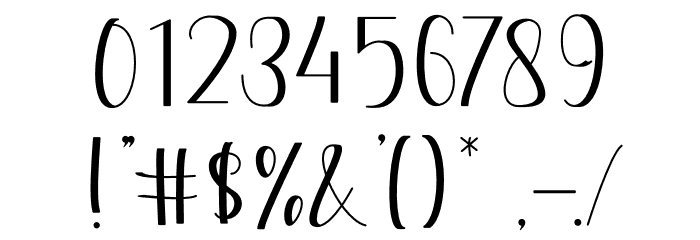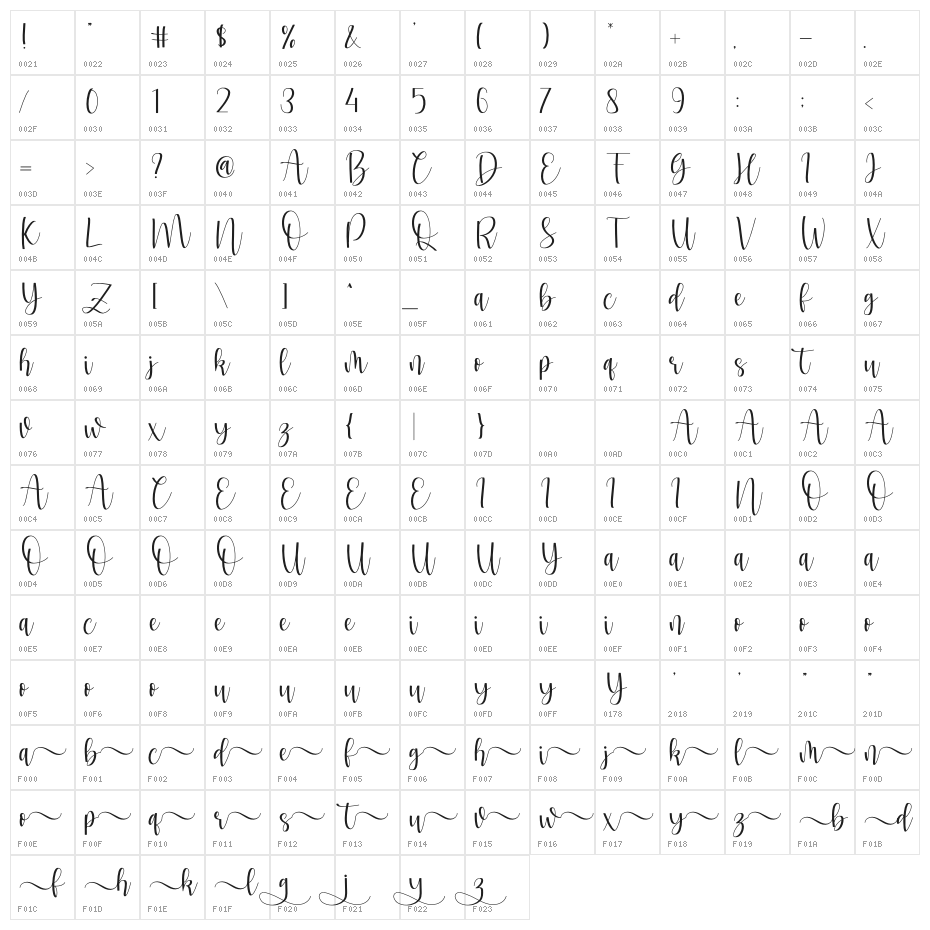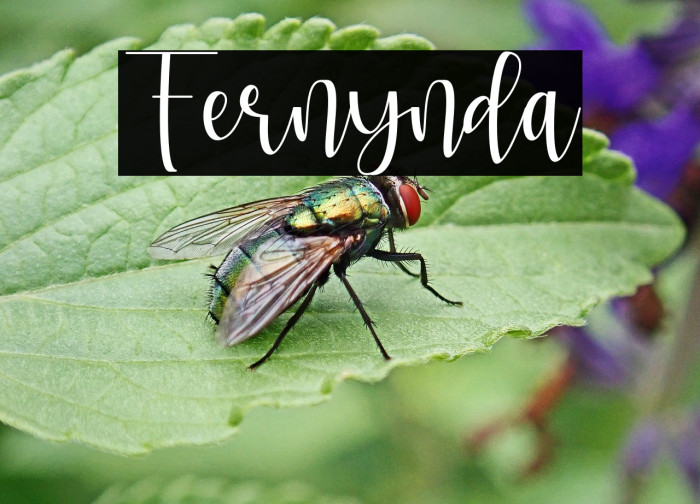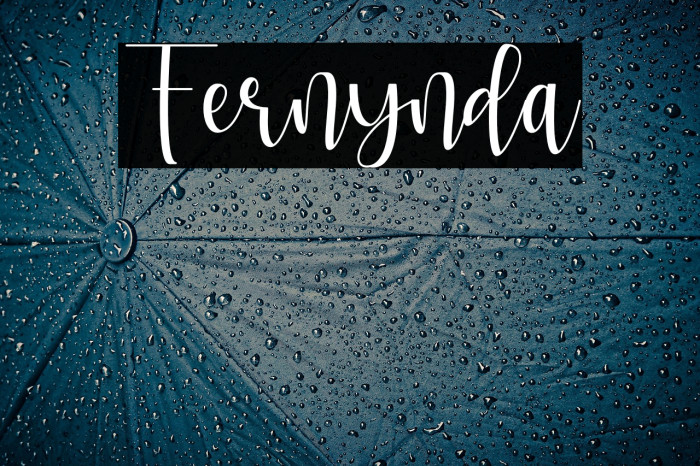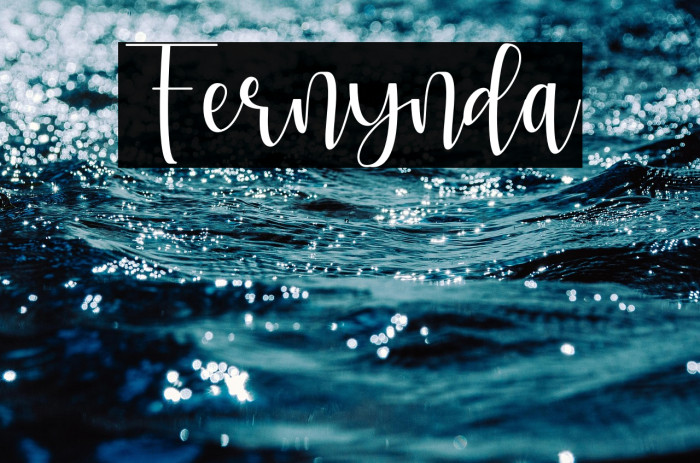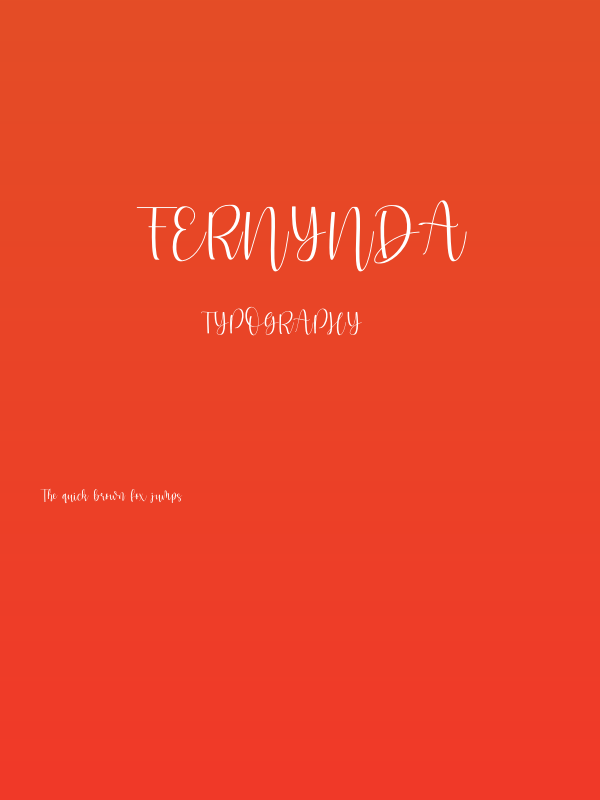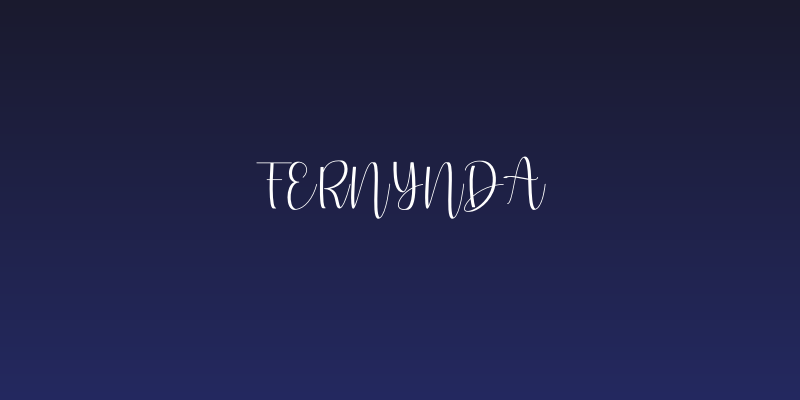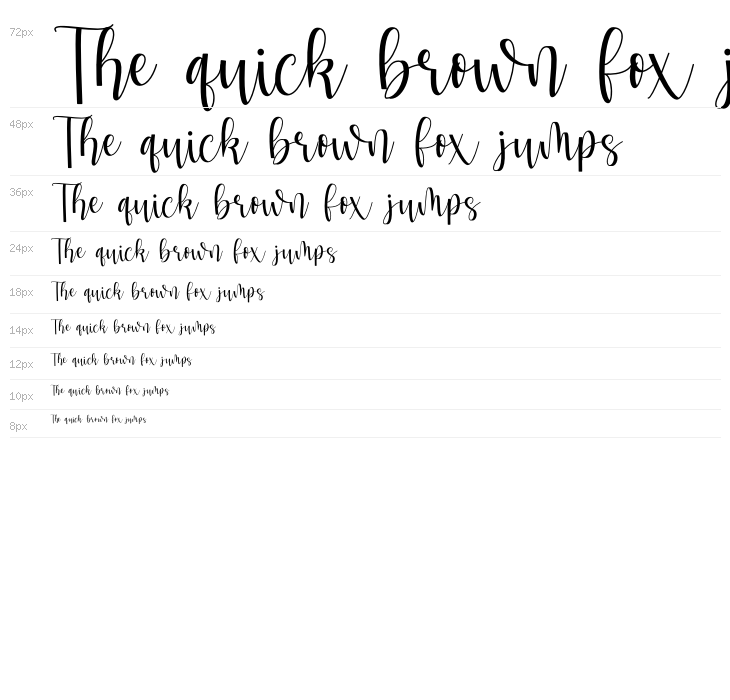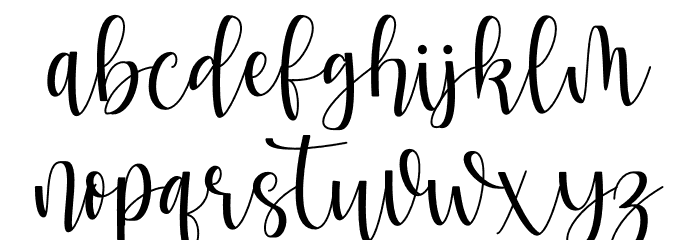
Fernynda Font
Fernynda Description
This font features a lively and elegant script style with a modern twist. The uppercase letters are characterized by their flowing, interconnected strokes, giving a sense of movement and grace. The lowercase letters maintain a consistent style, with smooth curves and a slightly playful demeanor. The numerals are clear and stylish, complementing the overall aesthetic. Special characters are thoughtfully designed to match the font's fluidity and charm. This font is perfect for adding a personal touch to any project, with its unique blend of sophistication and approachability.
| Use Case | Logos, Invitations, Social Media |
| Proposed Projects | Ideal for wedding invitations, branding, social media graphics, and personal stationery. |